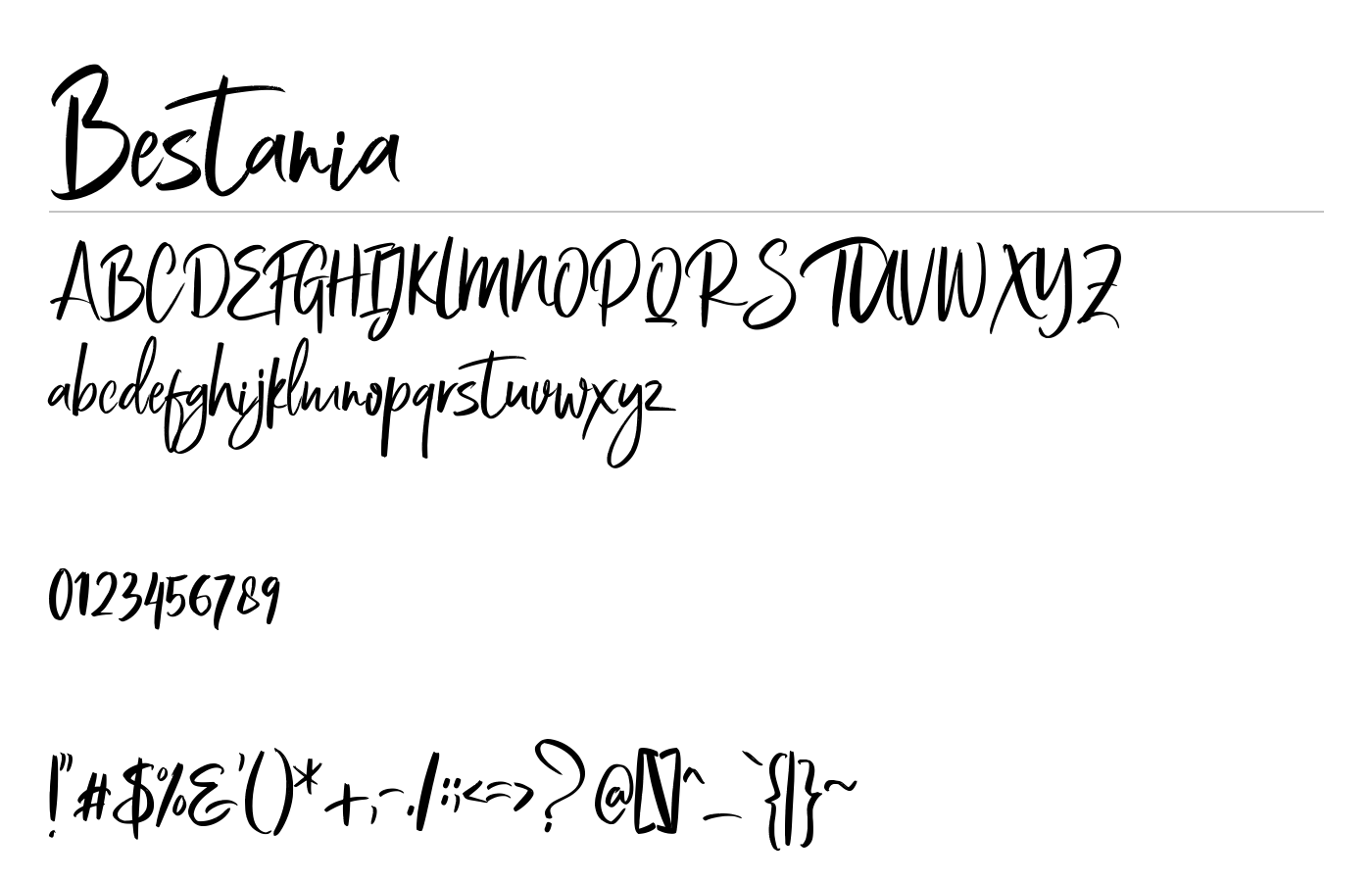
Bestania is a lively and expressive handwritten script font with a casual, brush-like texture that feels modern and personal. Its slightly condensed letterforms, varying stroke thickness, and playful curves make it ideal for creative branding, invitations, and headlines where a friendly, approachable vibe is desired. This font works best in designs seeking to convey warmth, creativity, and a human touch.
Bestania Font
About Bestania Font